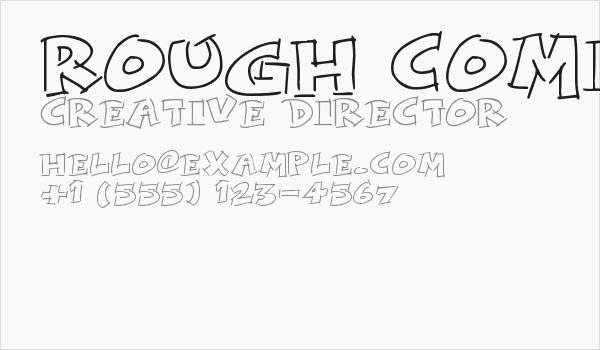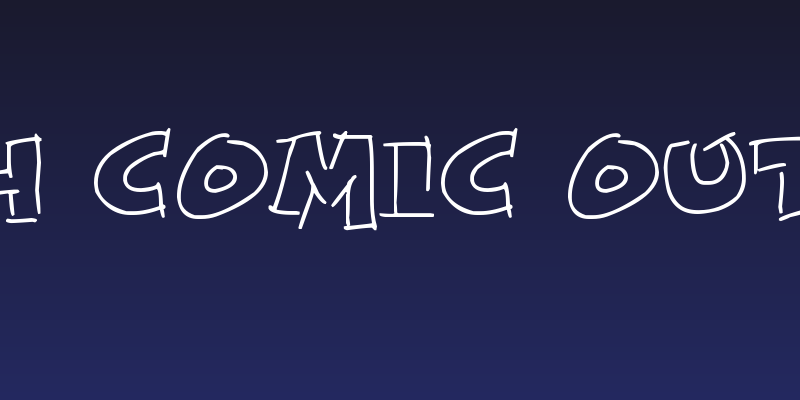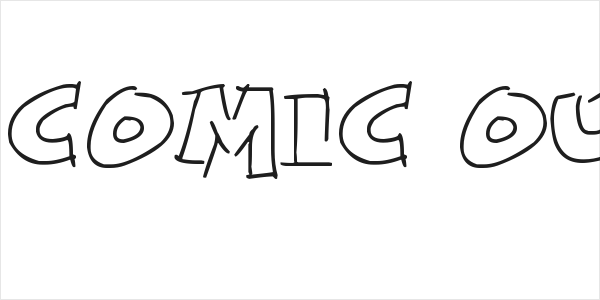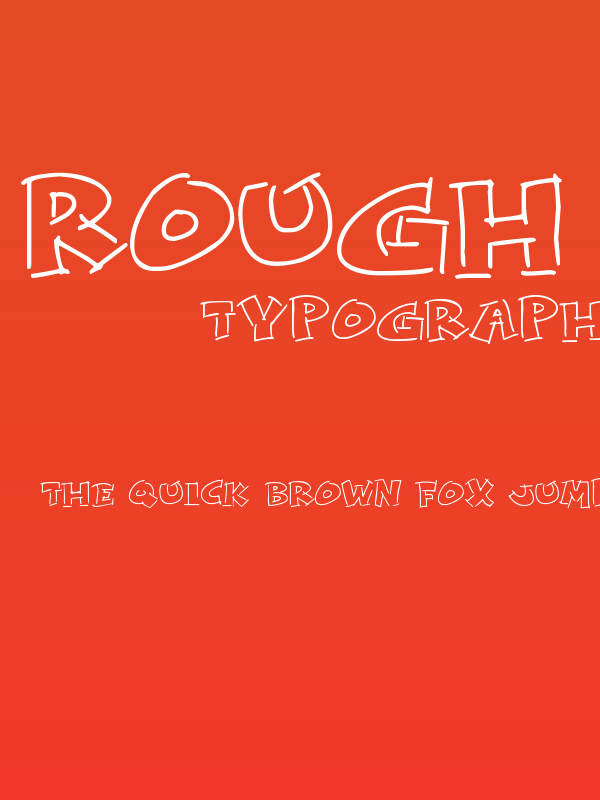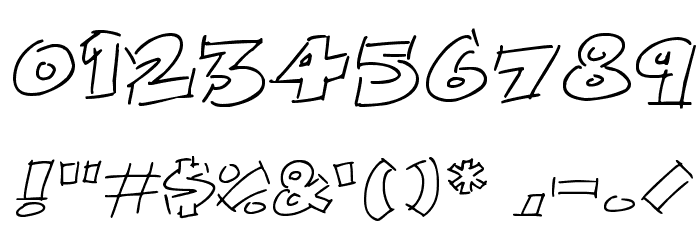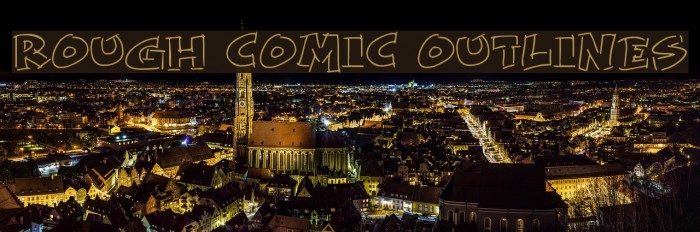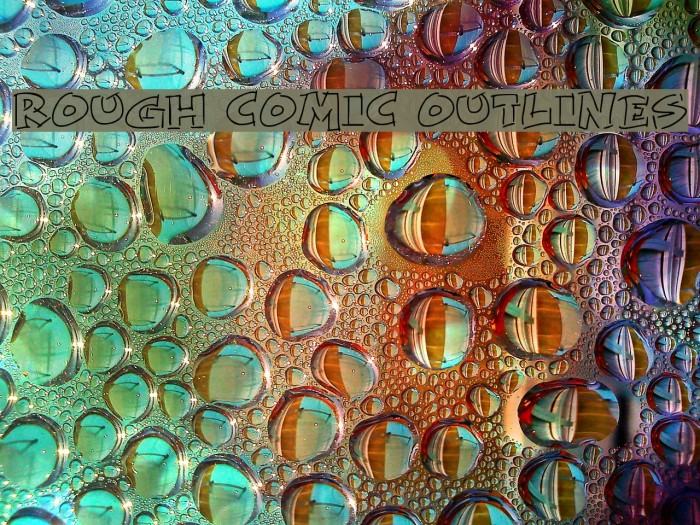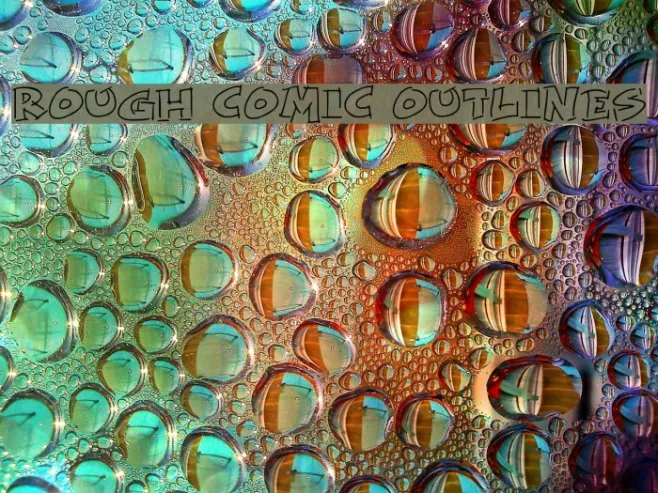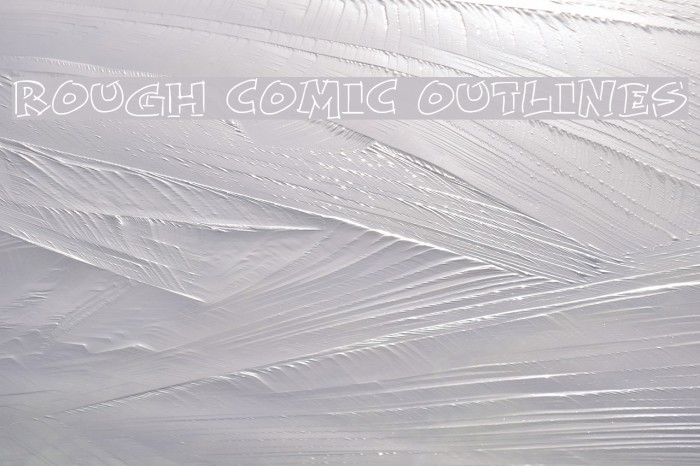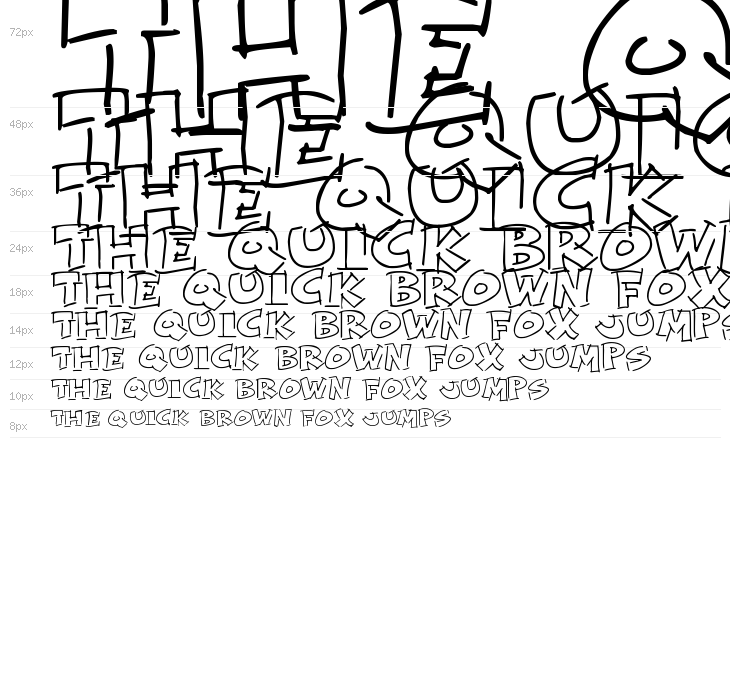
Rough Comic Outlines Font
Rough Comic Outlines Description
This font features a playful and dynamic style, characterized by its bold, outlined letters that give a hand-drawn, comic-like appearance. The irregular shapes and slightly tilted angles of the characters add a sense of movement and energy, making it ideal for informal and creative projects. The uppercase and lowercase letters maintain a consistent style, with exaggerated serifs and strokes that enhance the whimsical feel. Numbers and special characters follow the same design principles, ensuring a cohesive look across all text elements. The font's unique outline effect makes it stand out, perfect for grabbing attention in headlines or graphic designs.
| Overall Style | Playful, Comic |
| Proposed Projects | Ideal for comic books, children's books, playful branding, posters, and creative graphic designs. |